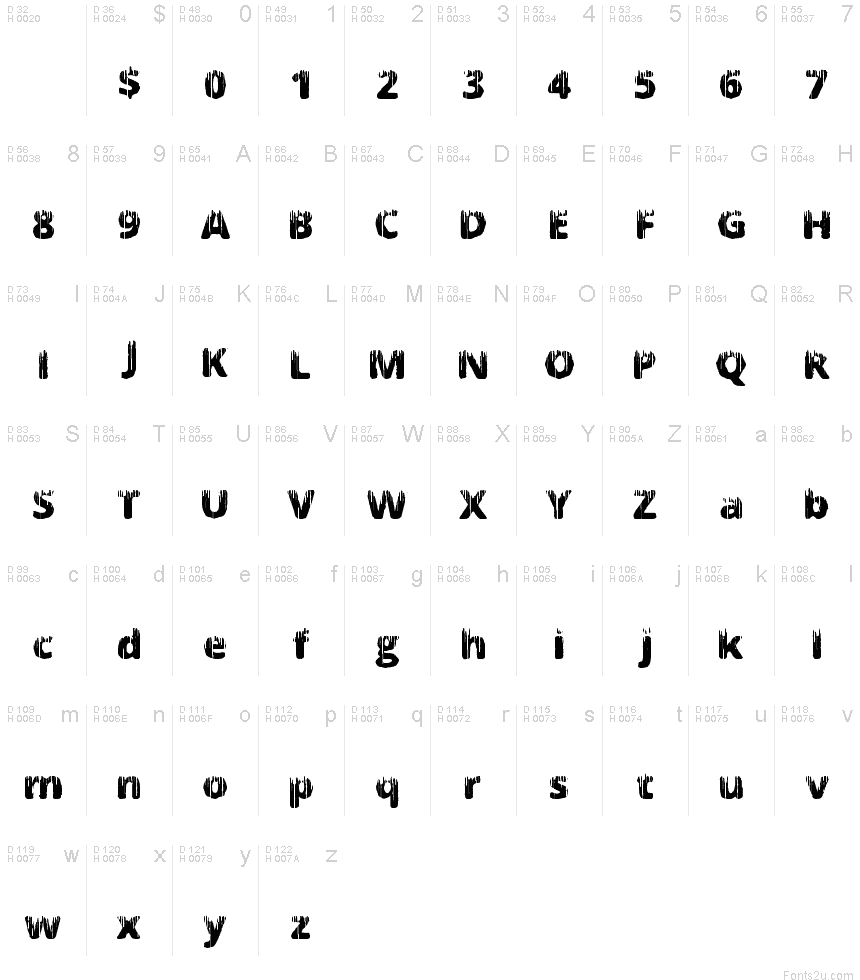
Melt Factory by Xerographer Fonts is a free eroded display font with hulking, uneven letters. Deep cuts break through broad strokes like peeling industrial paint. Rounded bulges and ragged edges keep the damage organic rather than mechanical.
A horror attraction or underground music label could use these forms for raw, physical branding. It suits concert posters, game title screens, and distressed merchandise. The streaked erosion links them through a rough surface texture.